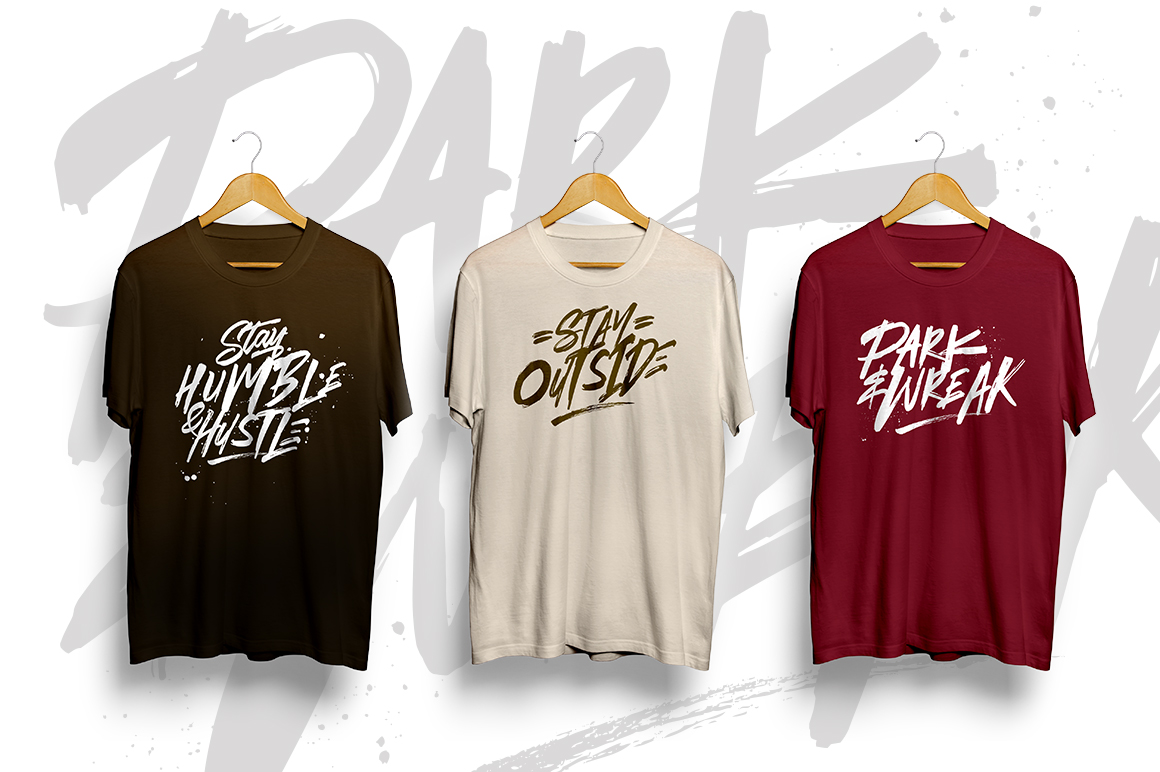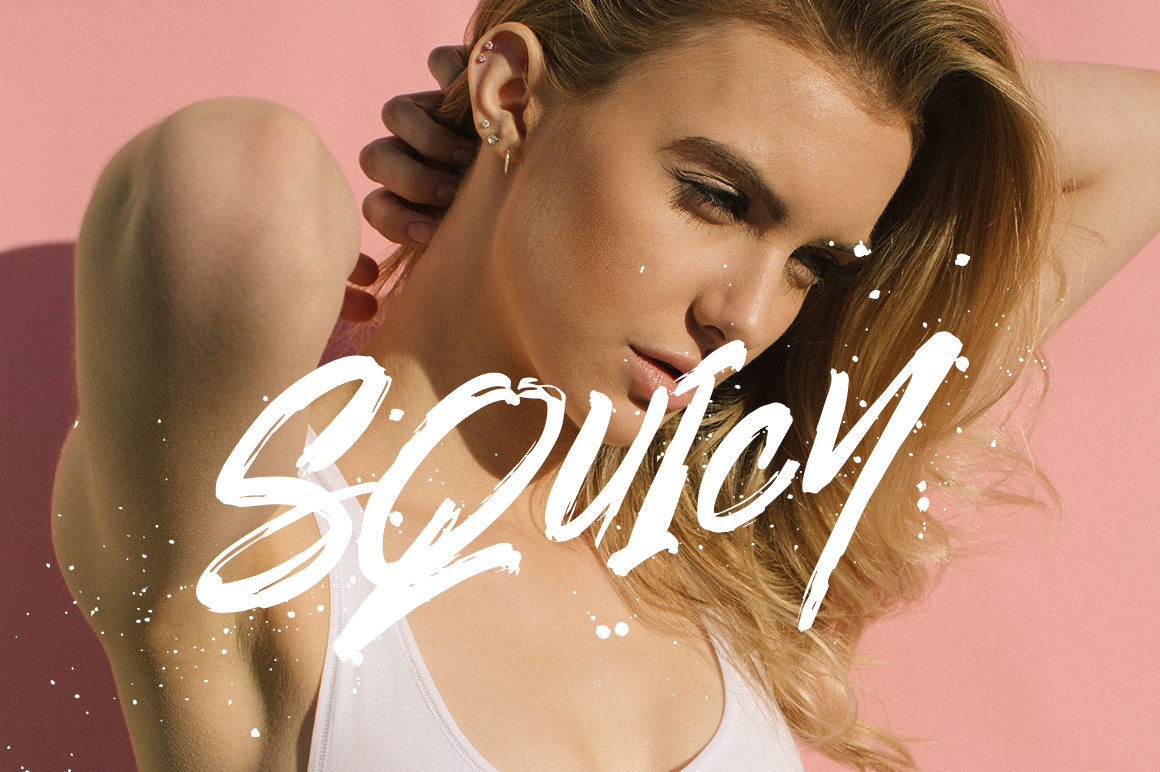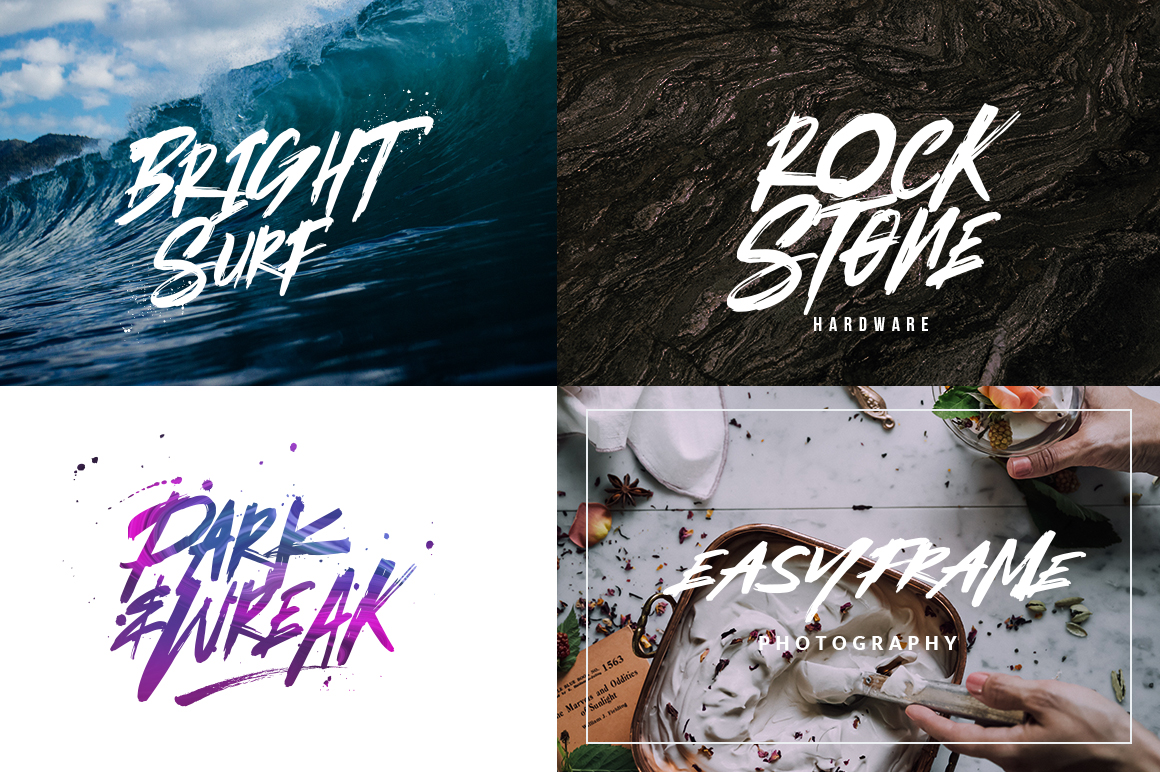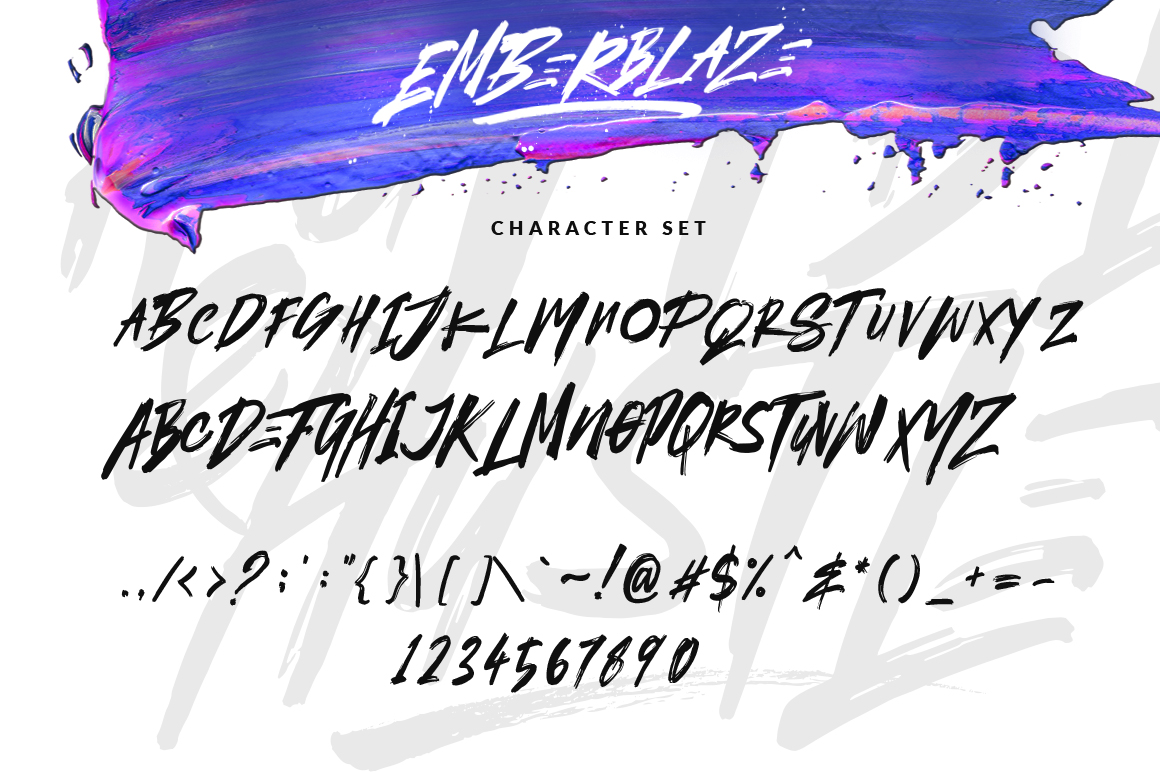
Free Emberblaze Font
Free Emberblaze Font is a handmade font brush, with a combination lifestyle and street-wise brush font. With extra attention to quick strokes and sharp details, Emberblaze delivers a message expressly and quickly, ideal for logos, apparel, quotes, product packaging, or anything which needs a typographic turbo-boost. This free typeface was designed by a talented Hendra dirtyline. If you like it don’t forget to check out the full version.